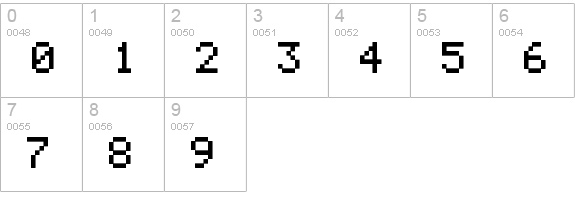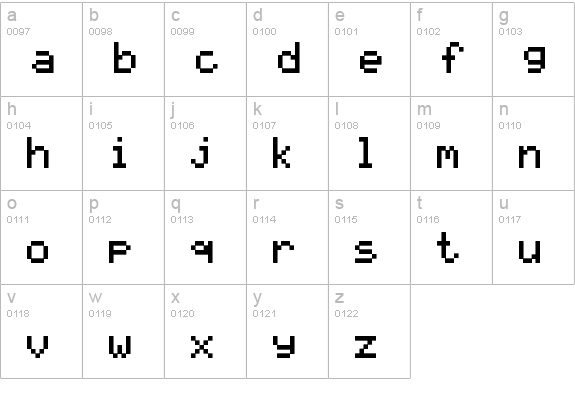
Introducing LCD Solid, a modern and versatile font that will bring a touch of sophistication to your designs. This typeface is perfect for creating eye-catching headlines, stylish logos, and striking displays. LCD Solid offers a unique blend of boldness and elegance, making it suitable for a wide range of projects. With its clean lines and sleek appearance, LCD Solid commands attention and exudes professionalism. Whether you're designing a website, crafting a brochure, or creating a poster, this font will make your text stand out from the crowd. What sets LCD Solid apart is its versatility. It can be used in various contexts, from tech-related projects to futuristic designs. Its bold characters and sharp edges give it a contemporary feel, while its clean and legible design ensures readability on both print and digital media. The best part? LCD Solid is available for free download at FontsMarket.com. That's right, you can enjoy this exceptional font without spending a dime. Simply head over to FontsMarket.com, and with just a few clicks, you'll have access to this incredible font and many other high-quality options. Don't miss out on the opportunity to enhance your designs with LCD Solid's modern and professional aesthetic. Download it for free today and elevate your projects to a whole new level of visual appeal.